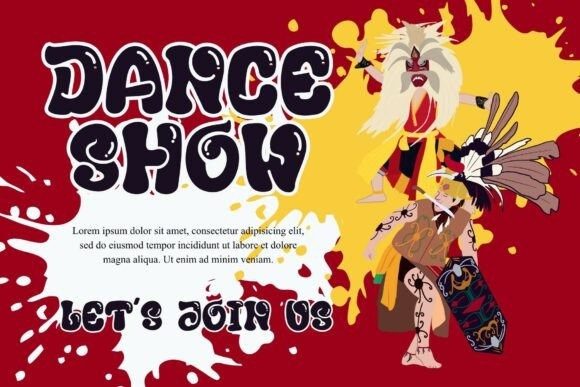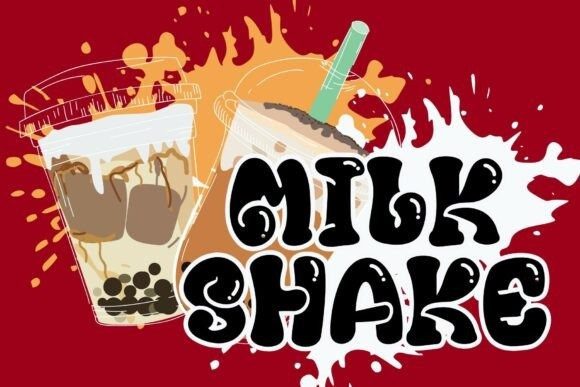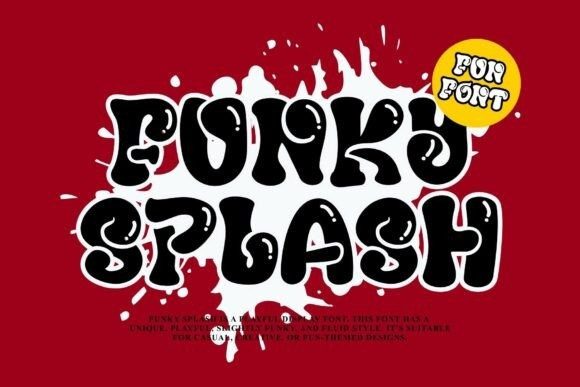
Funky Splash Font
Funky Splash Font is a bold and expressive display font that stands out with its unique, playful, and fluid letterforms. It brings a cheerful and creative vibe to any design project. Perfect for casual, fun, or children-themed designs, as well as creative branding, posters, or any artwork that needs an energetic and lively touch.